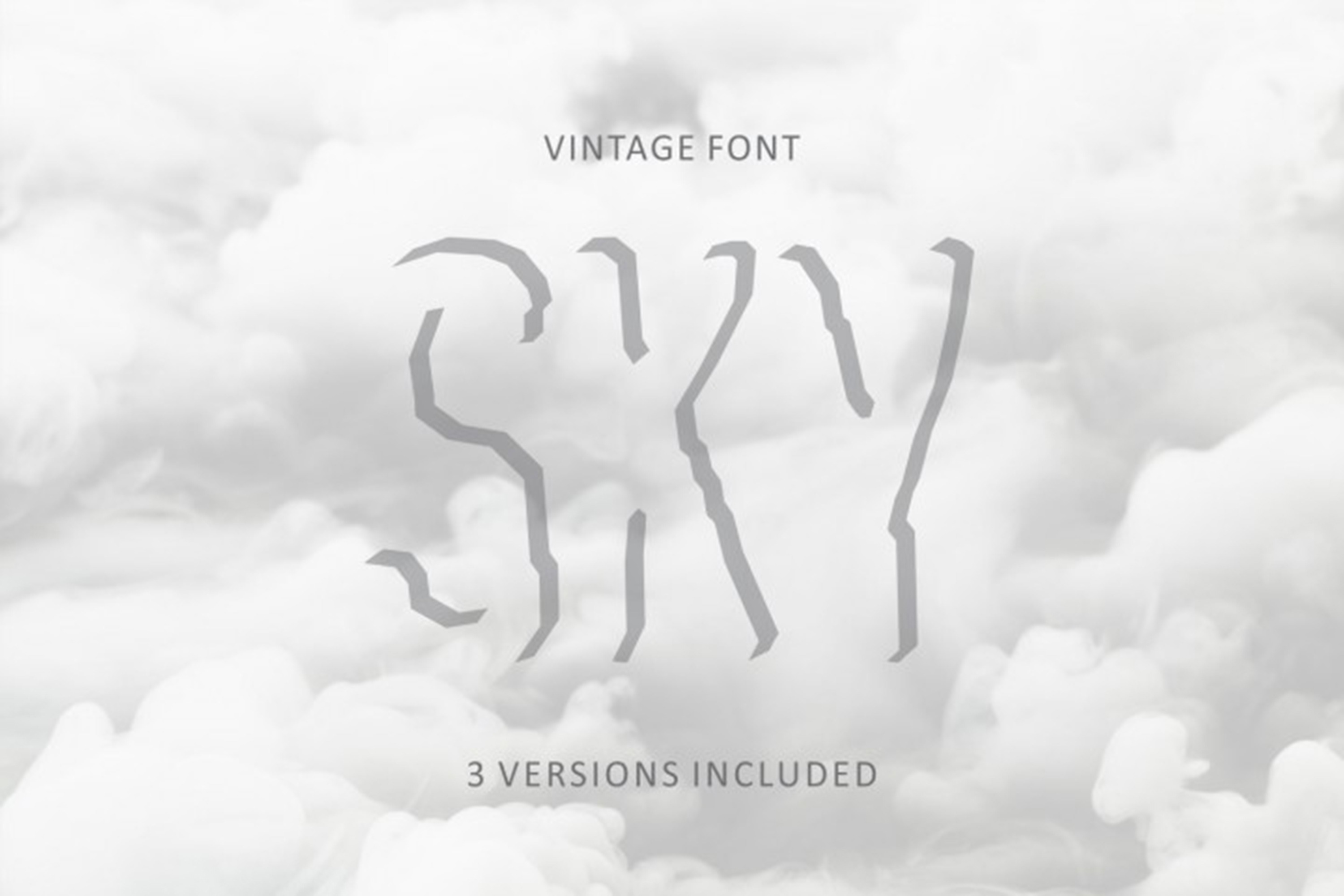
Ghostly Shadow 3 versions font
GhostlyShadow font There are no letters, there are only shadows! The ghostliest design of the existing and not existing font is here. Please welcome only shadows. Distribute this not existing font within your friends and do not afraid that it will disappear. All relevant files have been included as well as description and info. Design with this font will be incredibly beautiful and attractive. If you want to satisfy your customers with the highly rated product, use this font. Any design will become highly visible and interesting. Will it be holiday, party with friends, brochure or poster – GhostlyShadow font is the answer to any of your designer needs. Buy this attractive font and stay tuned to other incredibly attractive fonts by the group of enormously talented designers.